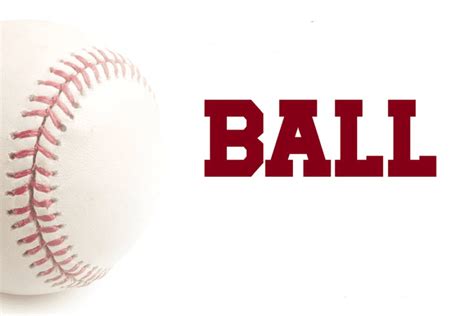
Alright, baseball fanatics and design enthusiasts, let’s talk about something near and dear to our hearts: baseball jersey fonts ! You know, those iconic letterforms that scream tradition, team spirit, and a touch of vintage flair. If you’re looking to create your own jerseys, design team logos, or just want to geek out over typography, you’ve come to the right place. We’re diving deep into the world of baseball jersey font download options, exploring the best fonts out there, and giving you the lowdown on how to use them like a pro. So, grab your bats (or your mouse) and let’s get started!
Why Baseball Jersey Fonts Matter
Before we jump into the fonts themselves, let’s chat about why these fonts are so important. Think about it: a baseball jersey is more than just a piece of clothing; it’s a statement. It represents a team, a city, a legacy. And the font? Well, that’s the voice of that statement. It’s the visual element that ties everything together. The right font can evoke feelings of nostalgia, excitement, and pride. It can make a team look classic, modern, or anything in between. That’s why choosing the perfect baseball jersey font is so crucial. It’s not just about picking a font; it’s about telling a story. It is about understanding the history of the sport, the team’s identity, and the overall aesthetic you’re trying to achieve. Whether you’re designing for a professional team, a local league, or even just for fun, the font will impact how your jersey is perceived. A well-chosen font can elevate your design, making it stand out and resonate with fans. In contrast, a poorly chosen font can make a jersey look cheap, generic, or just plain wrong . The font can impact the legibility of the jersey number and name, ensuring they are easily readable from a distance. A suitable font will provide the right visual weight and balance to the overall design. When selecting a font, consider the team’s color scheme, logo, and overall branding. The font should complement these elements, creating a cohesive and visually appealing look.
The Importance of Font Selection in Branding
• Brand Identity: The font you select becomes an integral part of your brand’s identity. It communicates your team’s personality and values. A bold, blocky font might convey strength and tradition, while a sleek, modern font could suggest innovation and dynamism. The font is an essential element that helps differentiate a brand from its competitors. Consistency in font usage reinforces brand recognition. When fans see the same font on jerseys, merchandise, and marketing materials, they immediately associate it with your team.
• Legibility and Readability: The primary function of a jersey font is to display player names and numbers clearly. Choosing a font that is easy to read from a distance is critical. Avoid overly ornate or complex fonts that might be difficult to decipher, especially when the jersey is in motion. The selected font must remain clear and readable regardless of the jersey’s color or design. This is essential for both fans and announcers.
• Historical and Cultural Significance: Many baseball jersey fonts have historical significance. Some fonts are closely associated with famous teams or iconic players. Utilizing these fonts can tap into the nostalgia and heritage of the sport. It connects the current team to its rich history. Understanding the evolution of baseball fonts can provide inspiration and guidance for your designs. Research the fonts used by legendary teams or eras to inform your decisions.
• Target Audience: Consider your target audience when selecting a font. A font that appeals to a younger audience might differ from one designed for older fans. Tailor your font choices to resonate with your desired demographic. Ensure your font choices align with the overall marketing and branding strategies. The right font choice can enhance the connection between the team and its fans.
• Versatility: Choose fonts that are versatile enough to work across various applications. Consider how the font will appear on different jersey styles, merchandise items, and digital platforms. The ability to use the same font across all your branding materials maintains a consistent look and feel. Fonts must be adaptable for different sizes and layouts.
Top Baseball Jersey Fonts to Download
Okay, guys, let’s get down to the good stuff: the fonts themselves! Here are some of the top baseball jersey font download options out there, along with some info about what makes them special:
1. Varsity Team Font
This is a classic for a reason! The Varsity Team Font is the quintessential baseball font, with its bold, blocky letters and a slightly rounded edge. It’s timeless, instantly recognizable, and works perfectly for both names and numbers. Many variations of this font exist, so you’ll find plenty of options to customize it to your liking. Look for versions with different weights, outlines, or shadow effects to add some extra flair. This font is perfect for recreating a classic, old-school look.
2. Block Letter Fonts
These fonts come in various styles. There are straight-edged block fonts, rounded block fonts, and even those with a slight slant. Block fonts are known for their simplicity and readability, making them ideal for jerseys. They’re easy to customize with different colors and effects. They offer a strong visual presence. Block letter fonts give off a sense of strength and tradition. They are versatile enough to suit both modern and vintage designs. They work great for jerseys, hats, and other team merchandise.
3. Script Fonts
If you’re going for a more vintage or elegant look, a script font might be the way to go. Script fonts can add a touch of sophistication to your jersey design. These fonts can range from a flowing, handwritten style to a more stylized, calligraphic look. Script fonts can be particularly effective for team names. However, be mindful of legibility, especially for numbers, and ensure that the font is easily readable from a distance. They are often used for throwback jerseys. You can create a unique and personalized look for your team. Script fonts can be a great way to add a touch of personality to your design.
1. Font Websites
Websites like Dafont, Font Squirrel, and 1001 Fonts offer a vast selection of free and premium fonts, including many baseball-style fonts. When downloading from these sites, be sure to check the license to ensure you can use the font for commercial purposes (like creating jerseys to sell). Always check the license agreements to ensure the font can be used for your specific needs. Look for sites that offer previews, allowing you to see how the font looks before downloading. You can also filter by style, such as